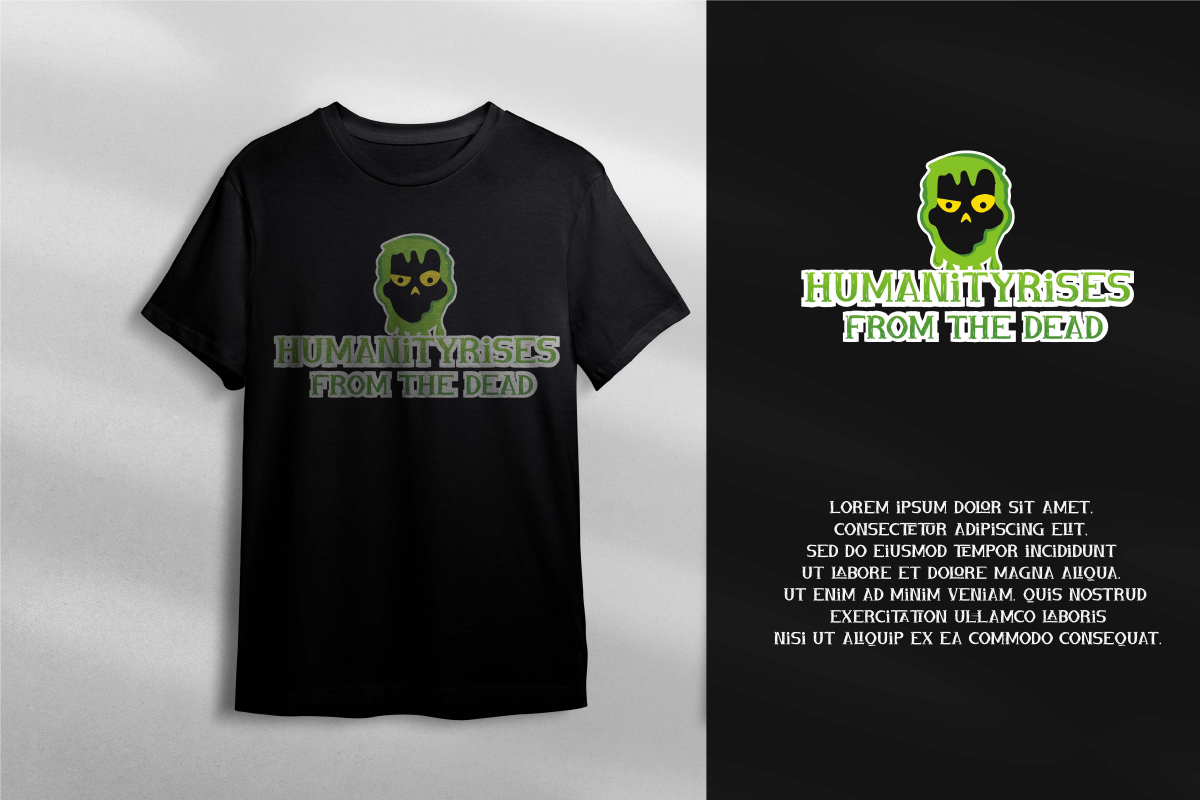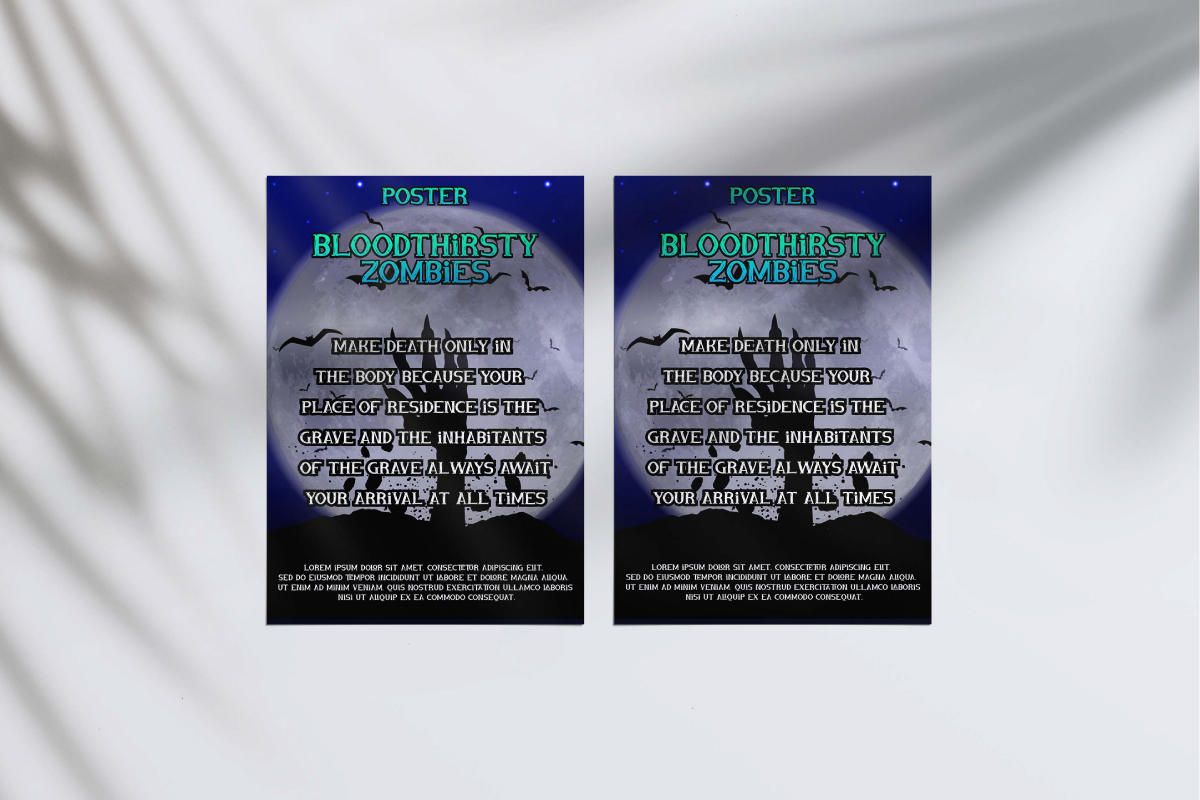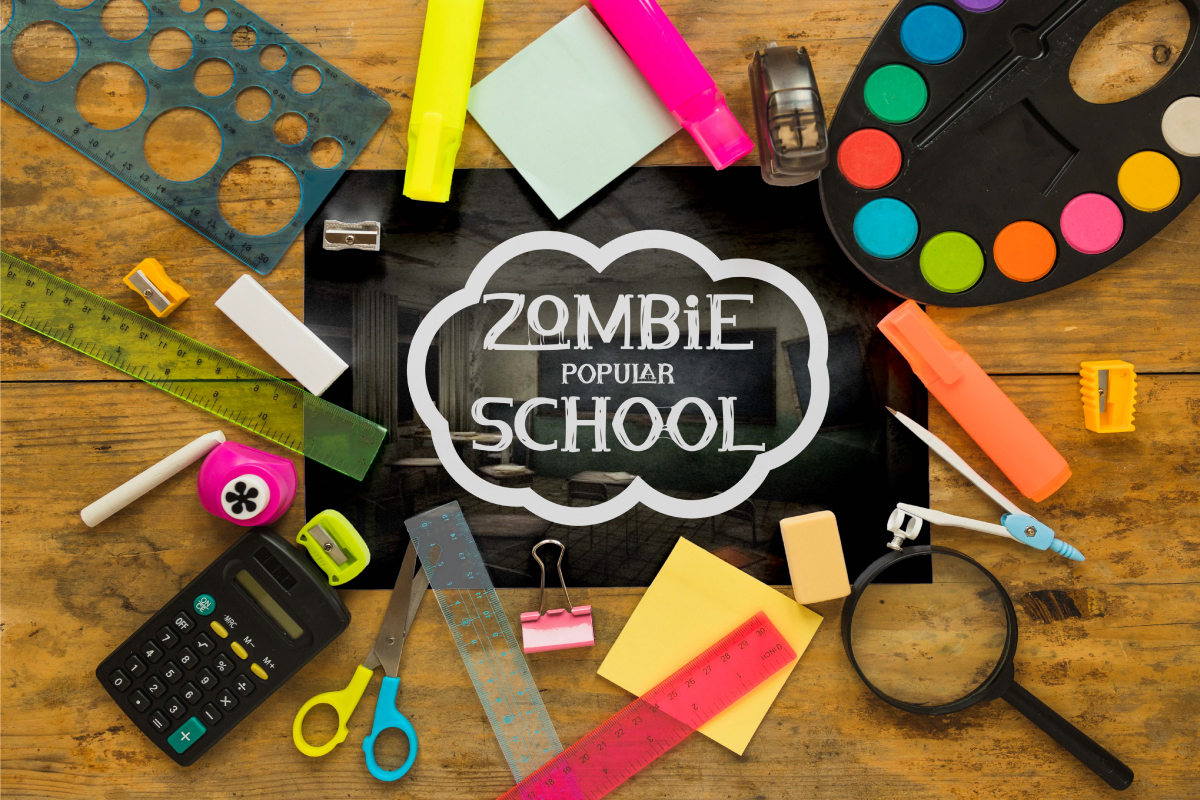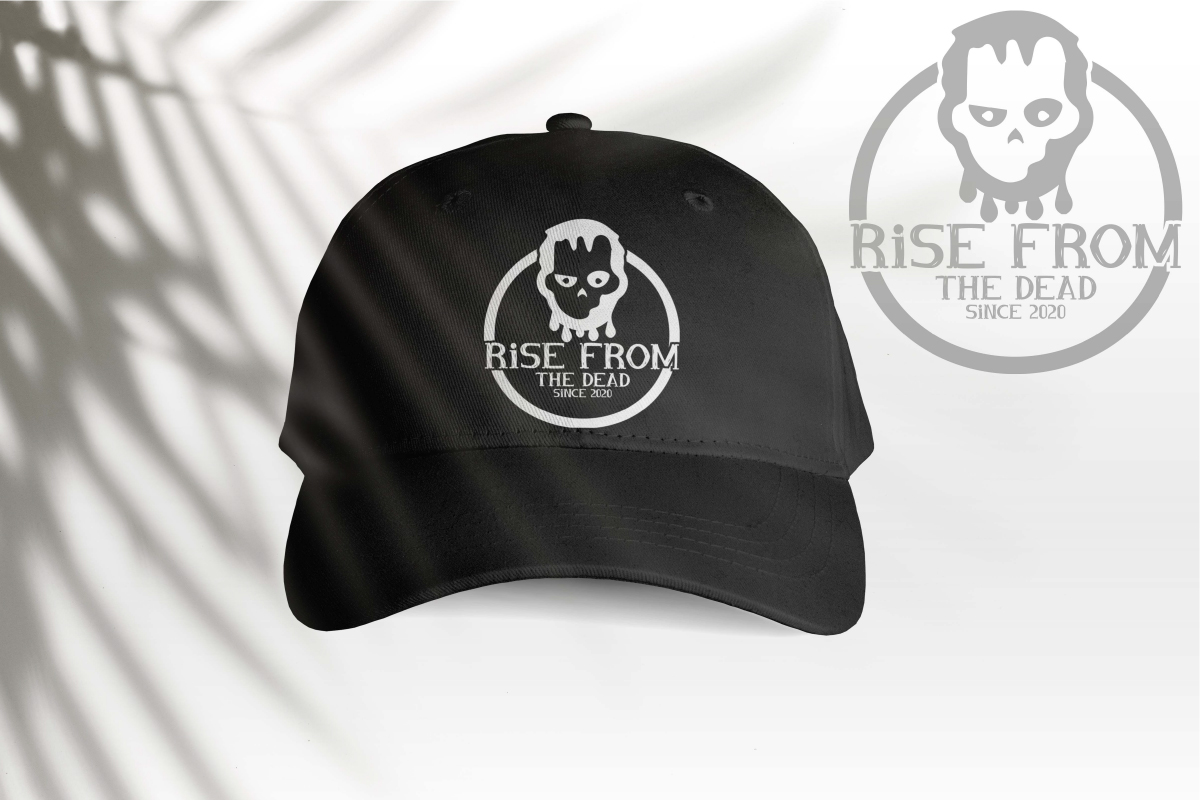
Zombie School Font
Zombie School Display Font
It’s a fun horror themed display font inspired by the zombie movie. This font has fun, little disgusting, mysterious, and spooky style. It’s very interesting for your various creativity related to zombies or for apparel design, carnival, Halloween party, headline, musician, poster, packaging, rock band, school, signage, and anything that requires scary but funny styled writing.